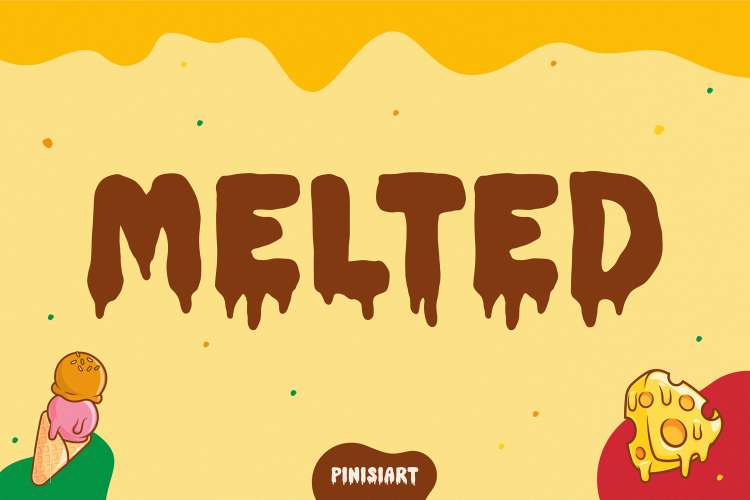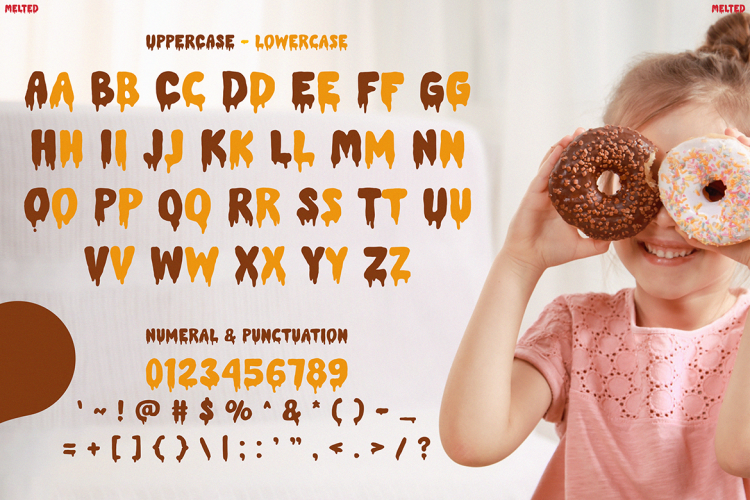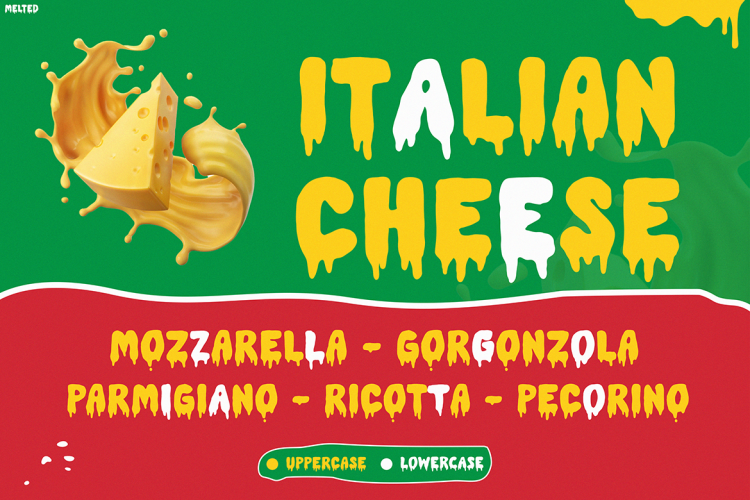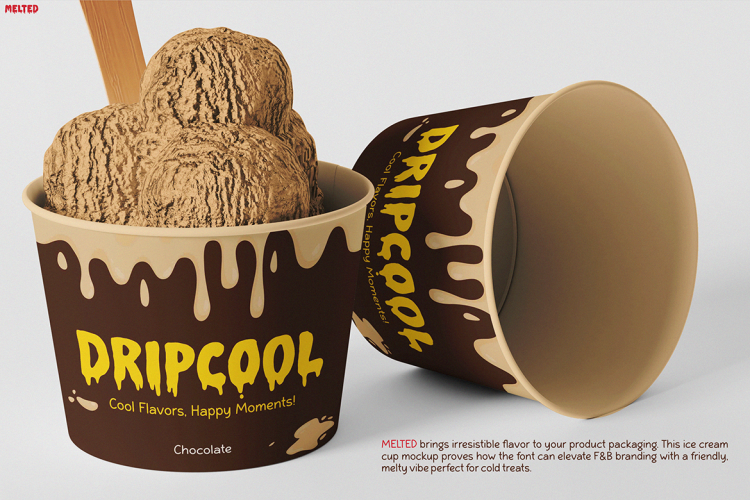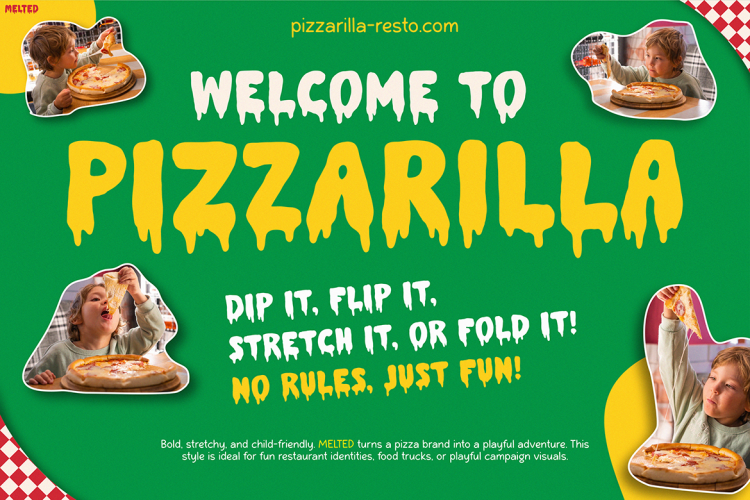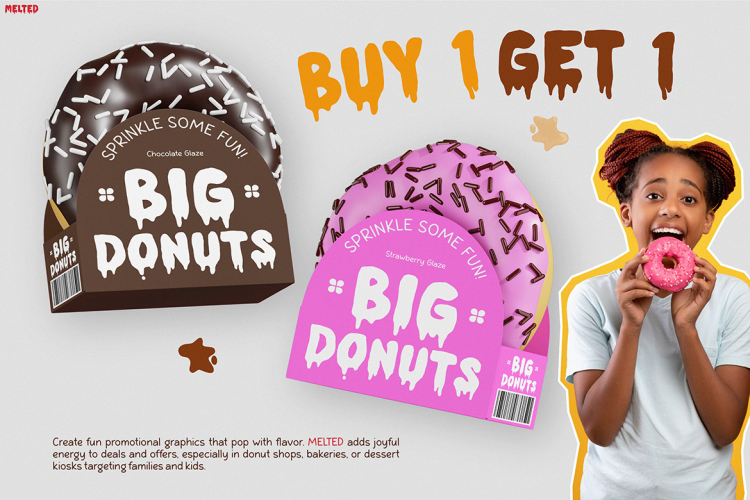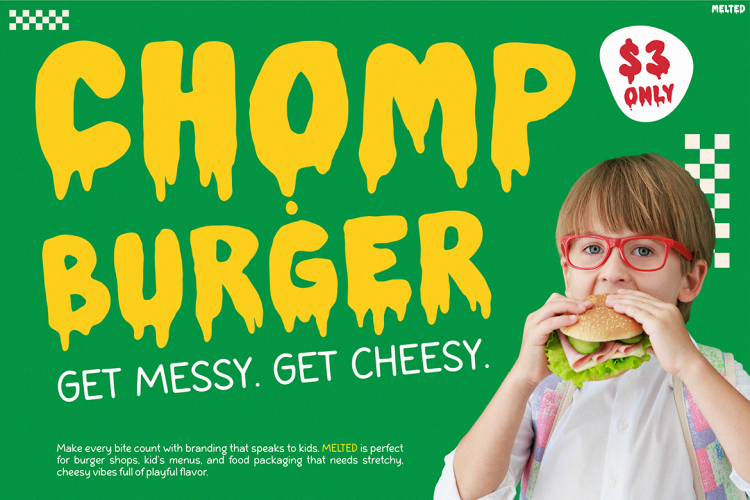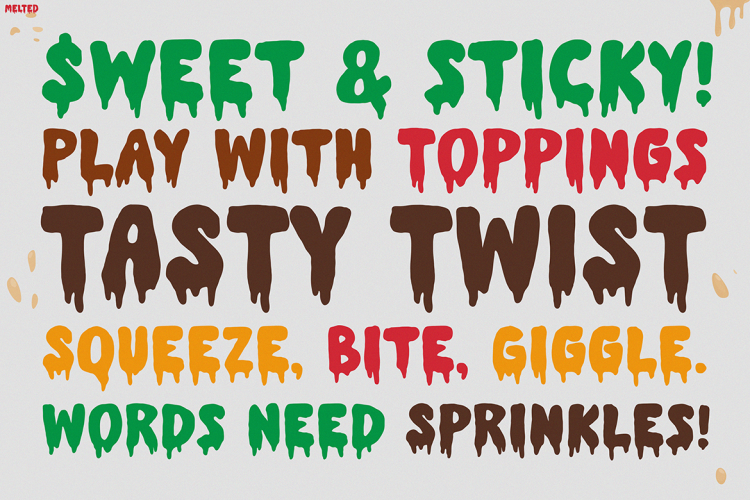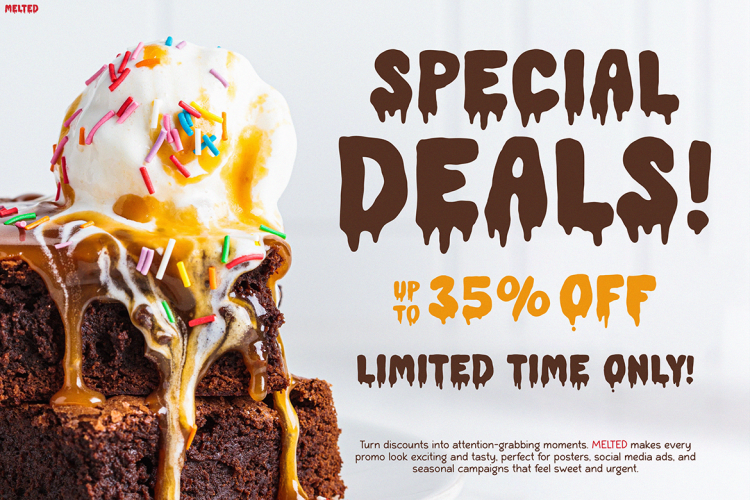
Kids Font MELTED: Sweet, Bold, and Unforgettable
Kids Font MELTED is a delightfully playful and visually captivating typeface that instantly grabs attention. From the very first glance, it stands out with its dripping, gooey, and candy-like style. Inspired by the textures of melting chocolate, frosting, and cheese, this font turns any message into an eye-catching treat. Moreover, its thick, rounded letters give off a bold, tasty vibeโmaking every design feel deliciously alive. Not only does it evoke a strong visual impact, but it also adds a flavorful twist that makes your content more memorable. As a result, itโs perfect for designs that need to feel fun, dynamic, and family-friendly.
In terms of functionality, Kids Font MELTED excels in promotional materials, product packaging, signage, and social media graphics. Additionally, the fontโs bouncy character and gooey drips give it a unique personality thatโs hard to miss. This font helps bring your ideas to life with a splash of excitement.
Descriptive Use & Suitable Audiences
Kids Font MELTED is an excellent choice for a variety of applications. In particular, itโs ideal for brands and creators aiming to add joy, energy, and flavor to their messages. For instance, food and beverage businesses can use it to create packaging that pops, while event organizers can use it to craft inviting signage or eye-catching posters. Moreover, it works beautifully in both digital and print formats.
Perfect for:
Donut shops, bakeries, and dessert kiosks
Kid-focused product packaging
Childrenโs birthday invitations and party materials
School event posters and signage
Holiday and seasonal sales promotions
Social media campaigns targeting families and kids
In other words, if your target audience includes children or families, Kids Font MELTED will help you make a stronger, sweeter impression. Also, the uppercase and lowercase options add extra flexibility for different design needs, whether you’re crafting bold headlines or quirky captions.